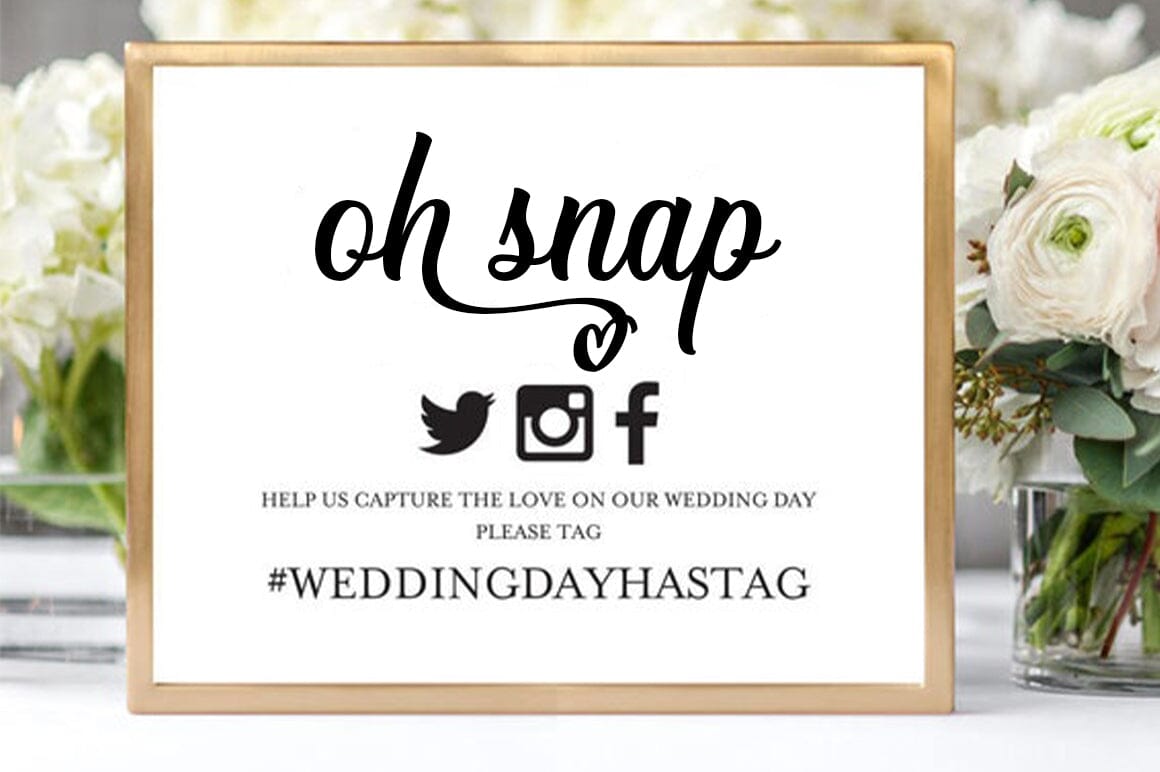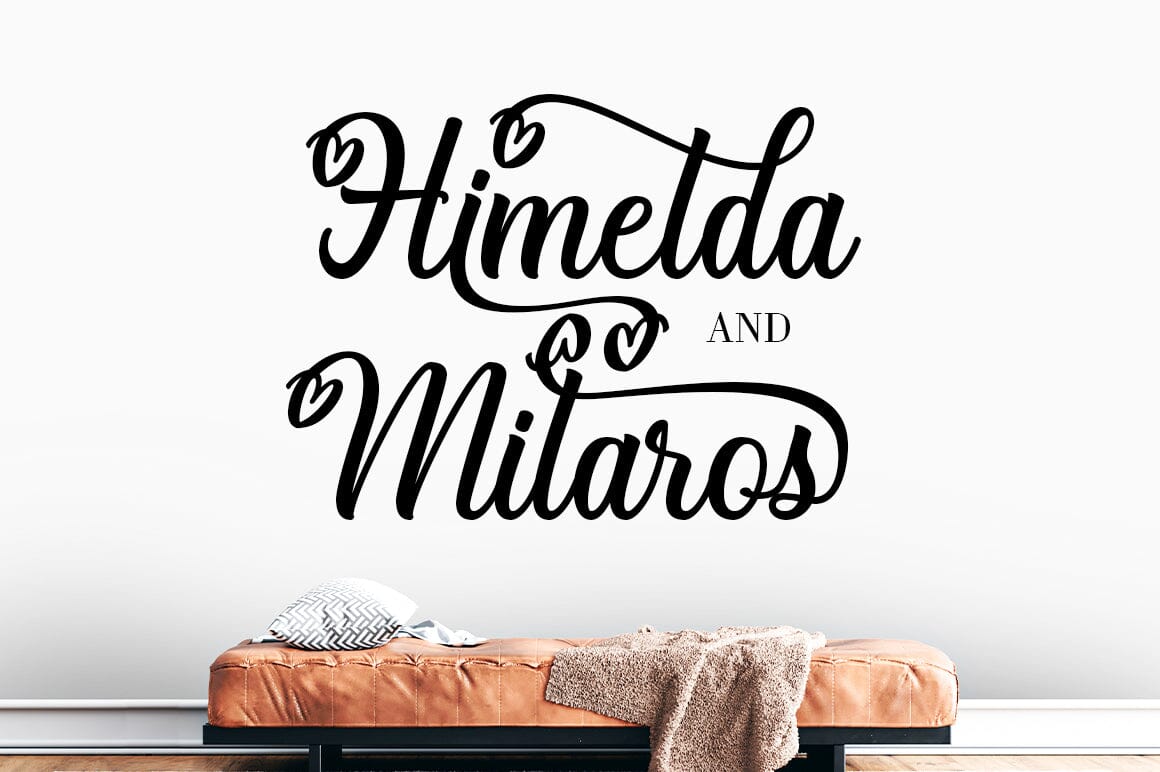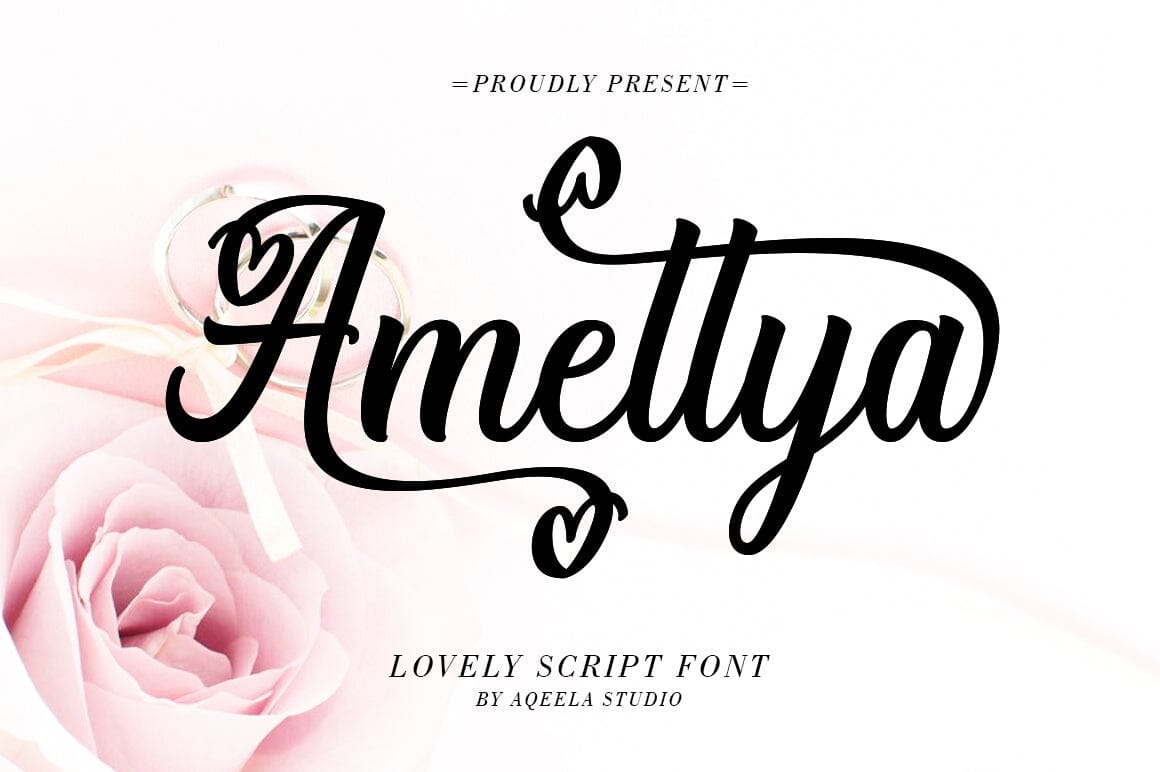
Amellya
About Amellya
Characters in the calligraphy typeface Amellya dance along the baseline, giving it a beautiful and pleasant feel. It has a relaxed yet beautiful feel to it. You can easily access all of the glyphs and swashes because this font is PUA encoded!